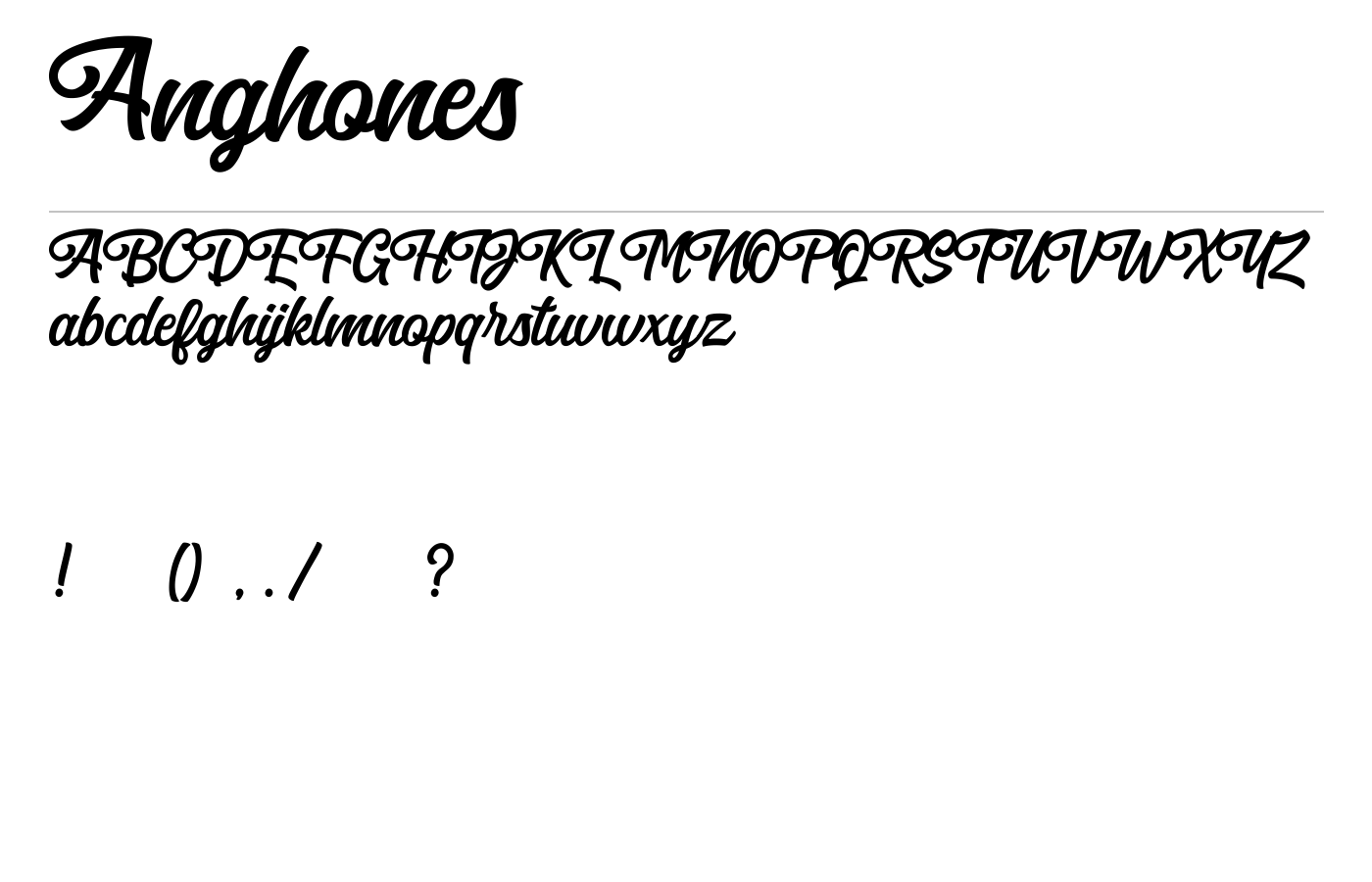
Anghones is a lively script font with a casual yet elegant flair, featuring smooth, flowing strokes and moderate contrast that bring a handwritten charm to its appearance. Its letters are connected with a natural rhythm, making it ideal for creative and personal designs such as invitations, branding, and stylish headlines. This font works well where a friendly, approachable, and slightly vintage feel is desired, adding warmth and personality to a variety of projects.
Anghones Font
About Anghones Font